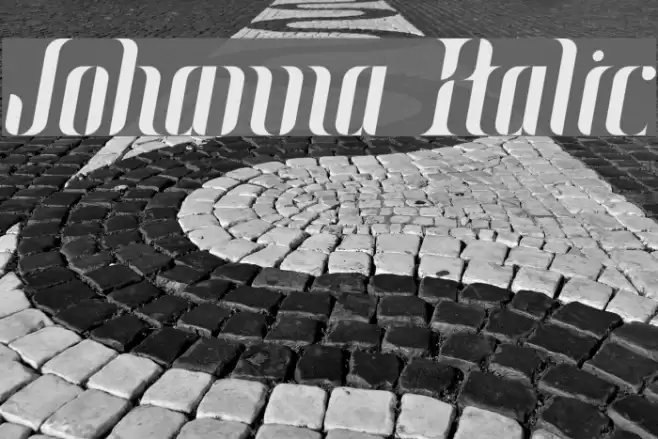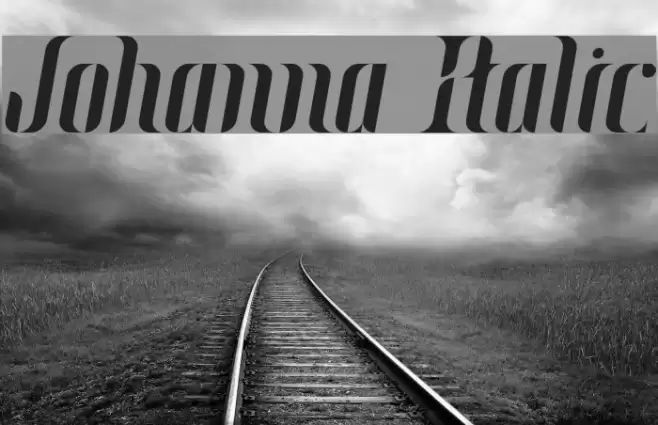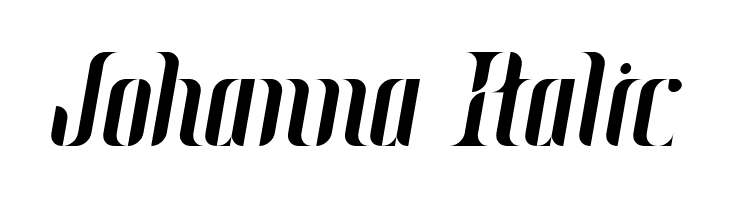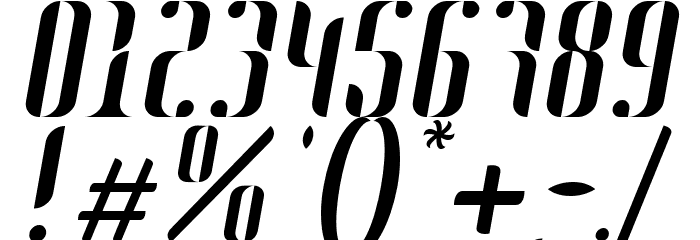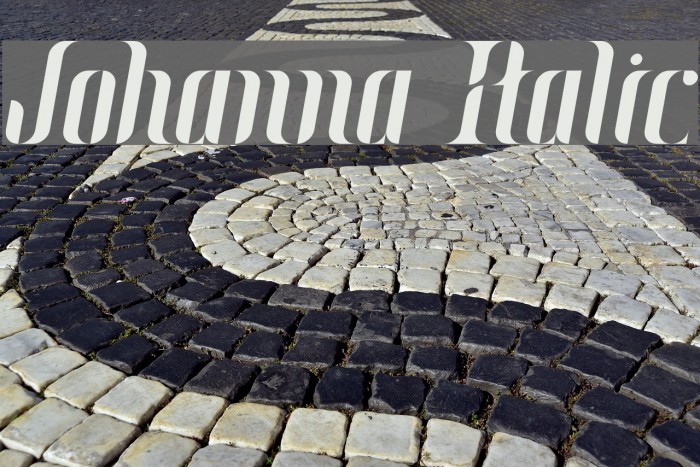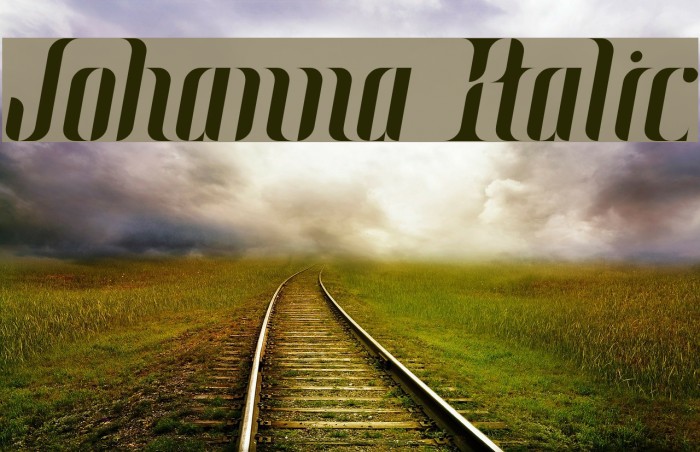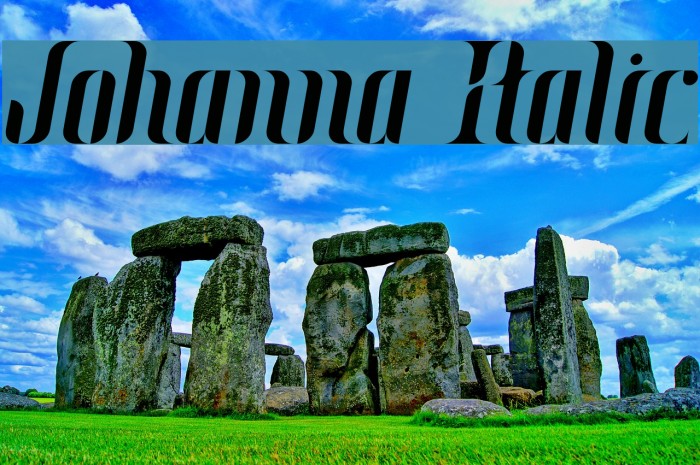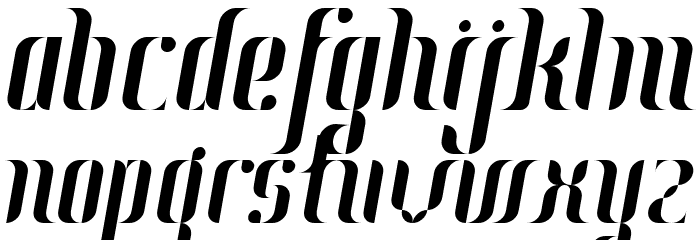
Johanna Italic Font
Johanna Italic Description
This font features a dynamic and elegant italic style with a modern twist. The characters are slanted, giving a sense of movement and fluidity. The strokes are bold with a high contrast between thick and thin lines, adding a dramatic flair. The design incorporates unique, rounded terminals and sharp edges, creating a distinctive and stylish appearance. The uppercase and lowercase letters maintain a consistent slant, enhancing readability while preserving an artistic touch. The numerals and special characters are designed to complement the alphabet, ensuring a cohesive look across all text elements.
A bold, high-contrast italic font with a modern and elegant style from Uncategorized fonts.
- Proposed Projects: Ideal for branding, fashion magazines, luxury product packaging, and elegant invitations.
- Overall Style: Modern, Elegant
- Use Case: Headlines, Logos, Branding